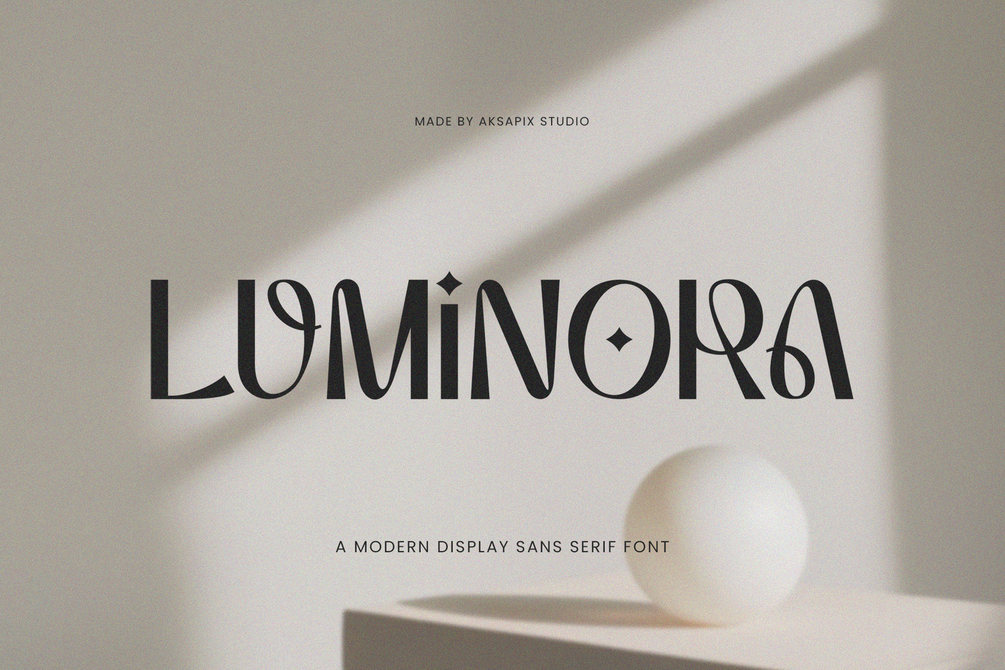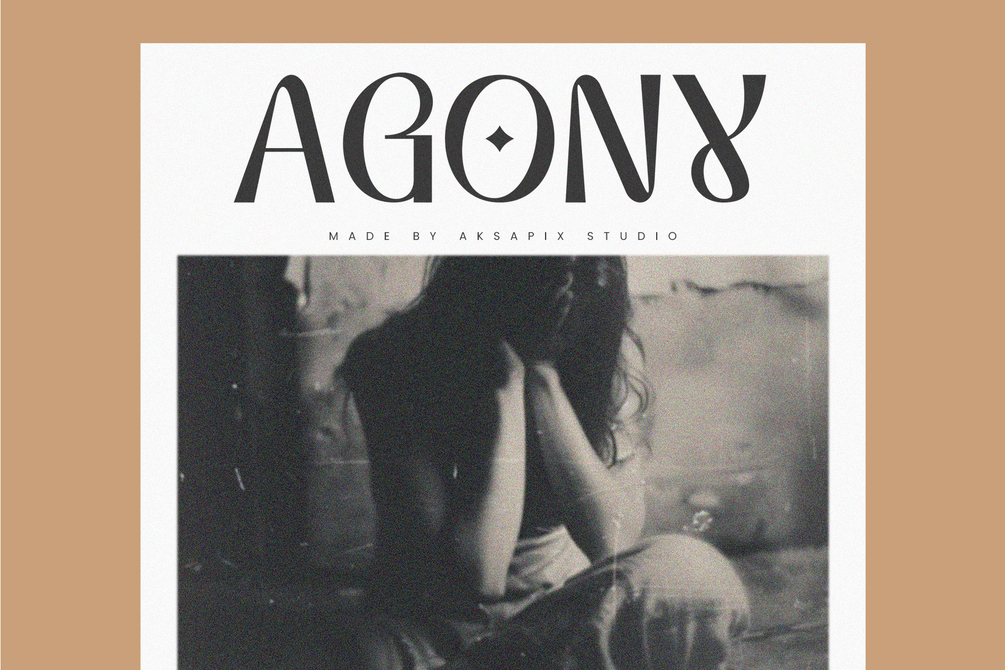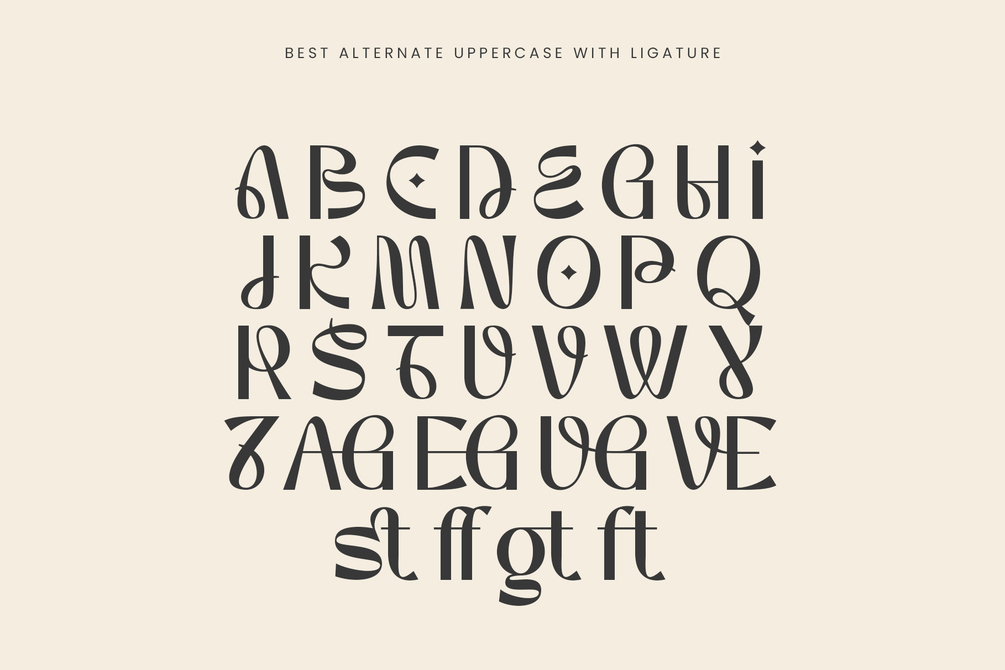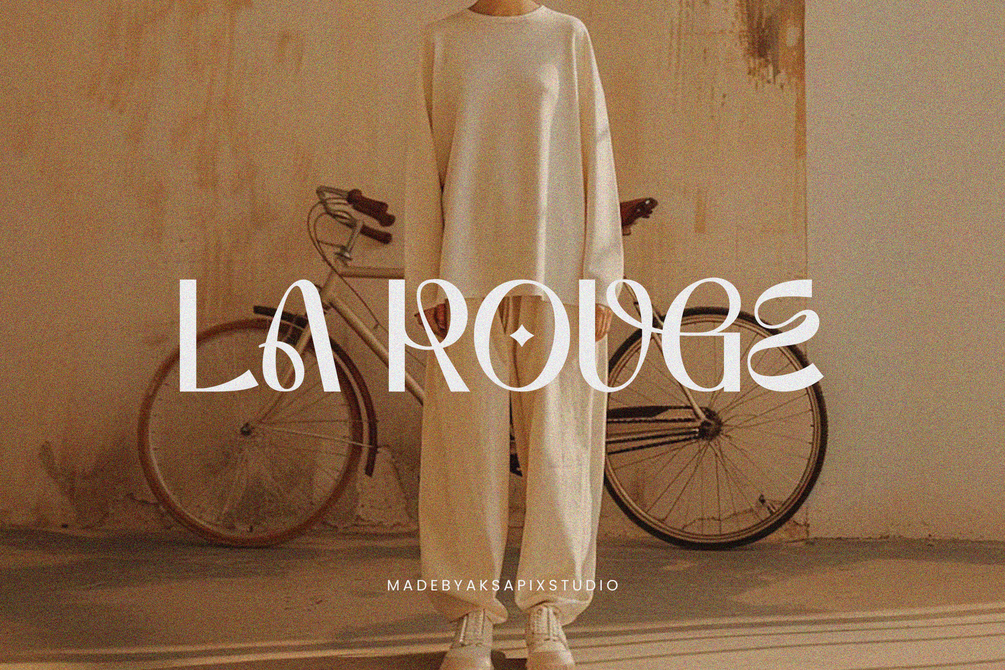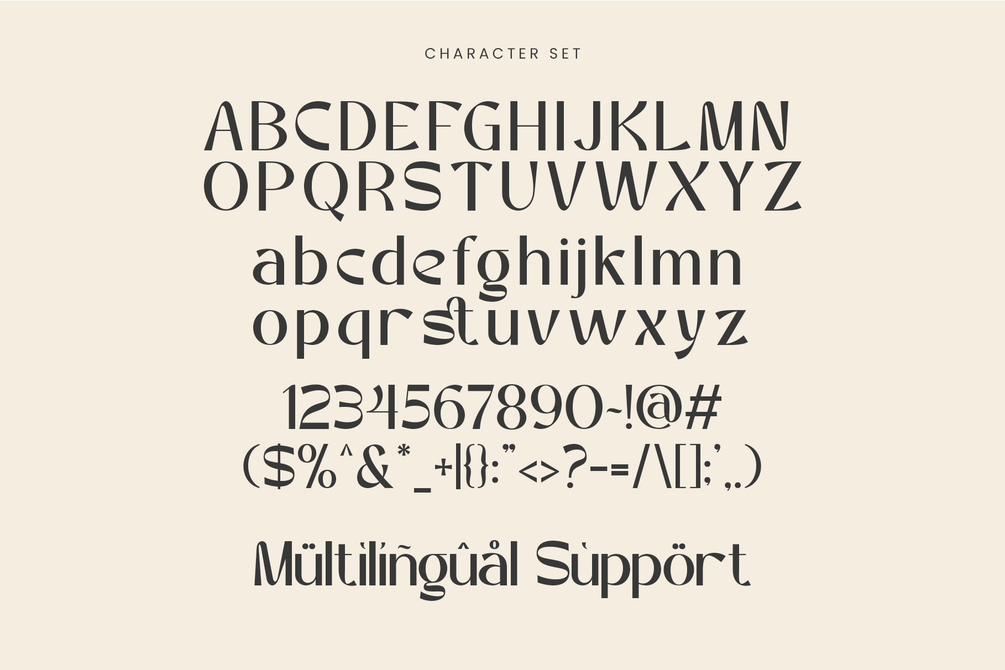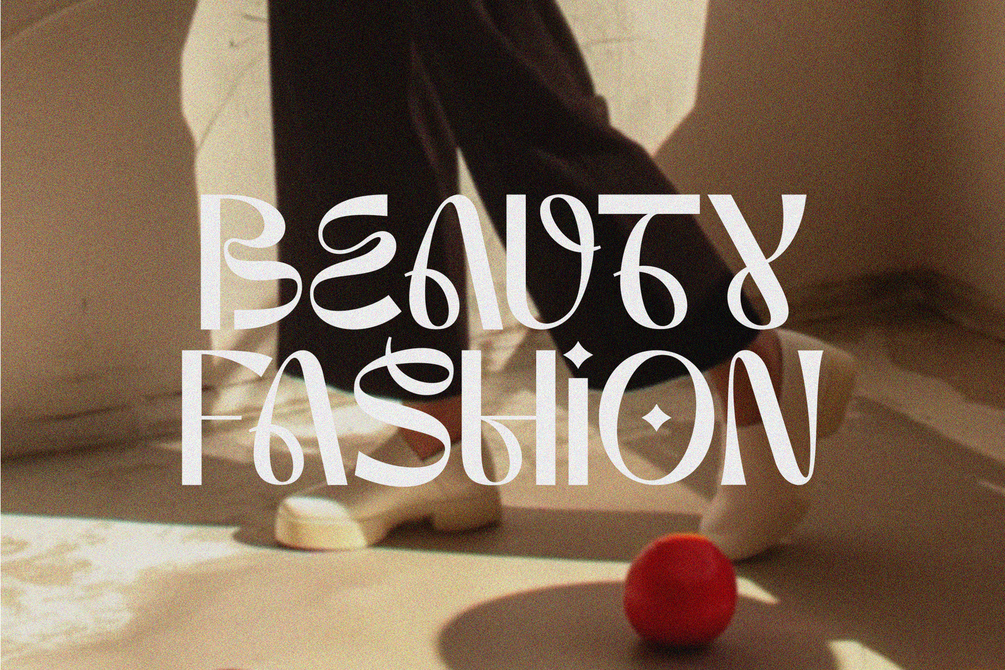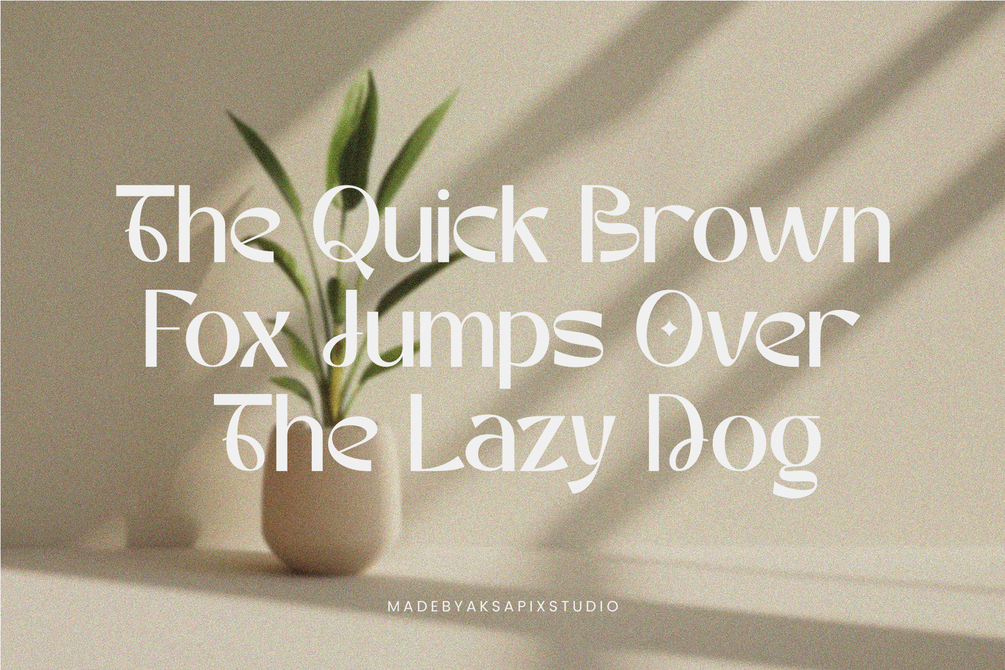
Luminora - Modern Display Sans Serif Font
Introducing Luminora - Modern Display Sans Serif Font, a sleek and stylish typeface designed for contemporary designs. With its clean lines and modern aesthetics, Luminora is perfect for projects that require a touch of sophistication and elegance. This font includes stylistic alternate characters and provides multilingual support, making it versatile for a variety of applications.
Key Features:
- Uppercase & Lowercase
- Punctuation & Numbers
- Stylistic Alternates: Offers unique character variations for added creativity.
- Multilingual Support: Compatible with multiple languages for global accessibility.
- Clean and Modern Design: Ideal for a contemporary look in any design project.
Perfect For:
- Fashion Branding
- Editorial Layouts
- Website Design
- Invitations and Stationery
- Creative Advertisements
Elevate your designs with Luminora - Modern Display Sans Serif Font. Whether you're working on a fashion brand identity, an elegant website, or stylish invitations, Luminora adds a modern flair that captivates and engages your audience.